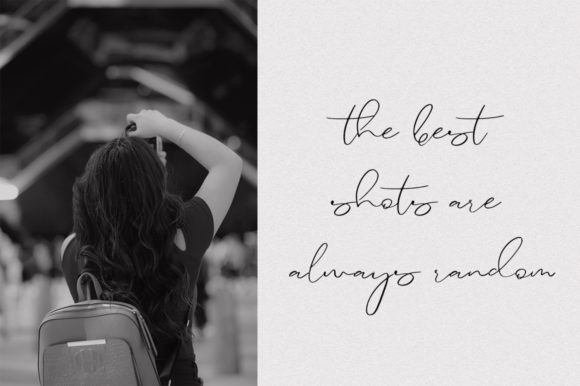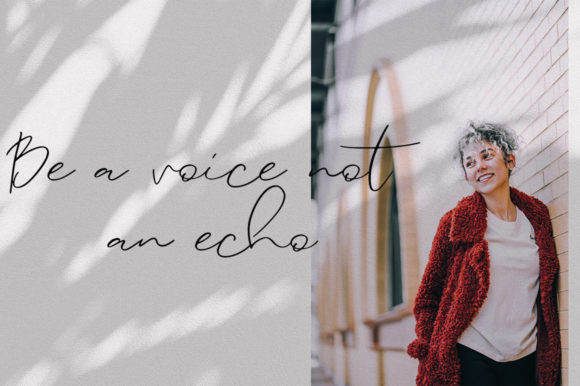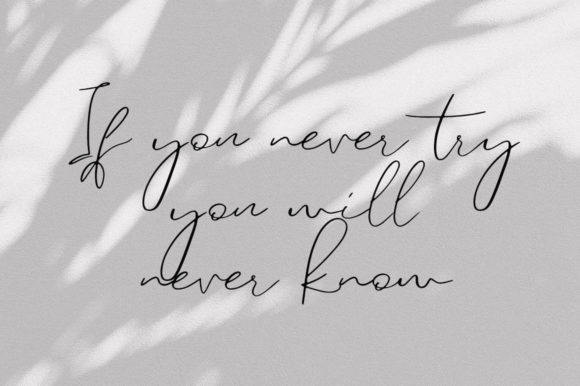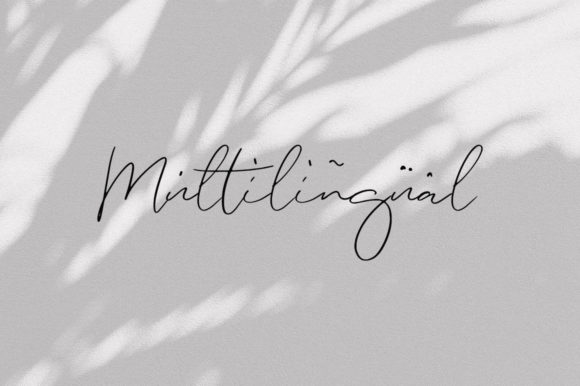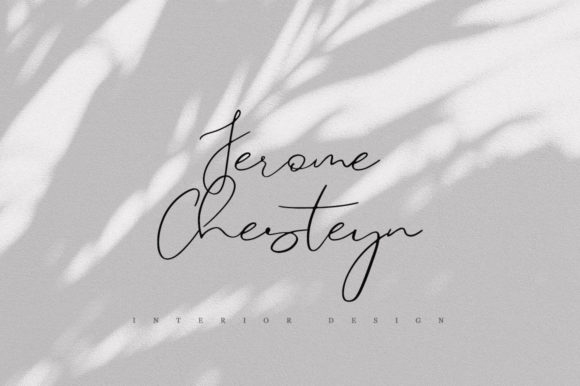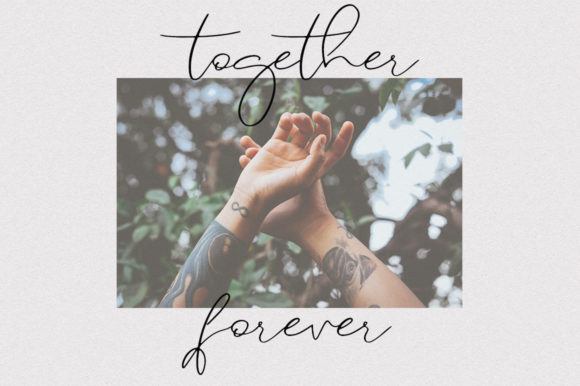
Shawte Font
About Shawte Font
Shawte is a light and breezy handwritten font with a uniquely authentic feel. Fall in love with its light characters, and turn any design idea into a stand out!